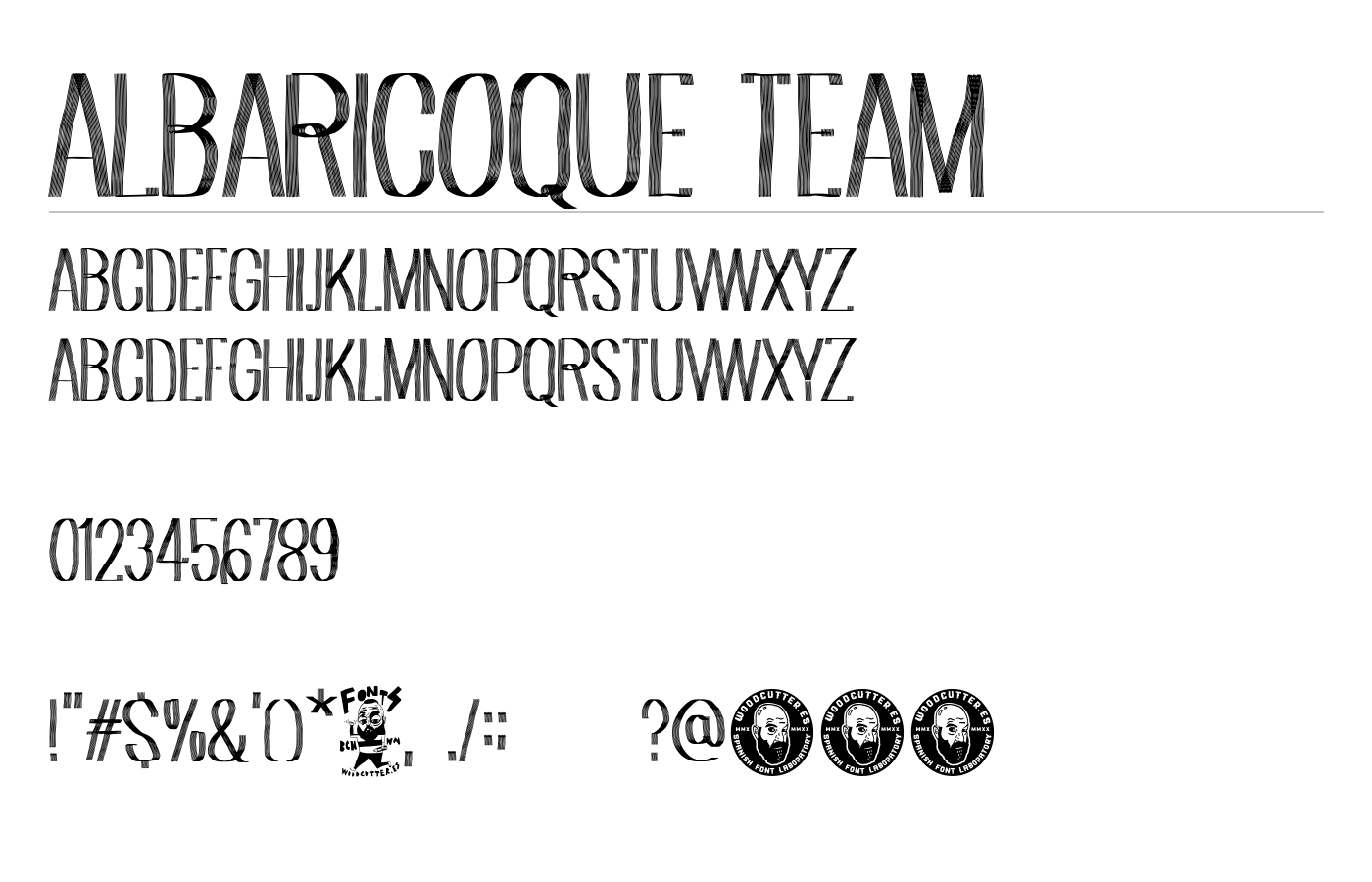
Albaricoque Team is a distinctive sans serif font characterized by its tall, narrow letterforms and high contrast created through overlapping diagonal lines, giving it a textured, almost handcrafted vibe. Its condensed width and unique stroke pattern make it stand out for creative headlines, posters, and branding that seek an artistic, edgy, and modern look. This font works best where bold visual impact and individuality are key, adding a dynamic and contemporary flair to fashion, editorial, and poster designs.
Albaricoque Team Font
About Albaricoque Team Font